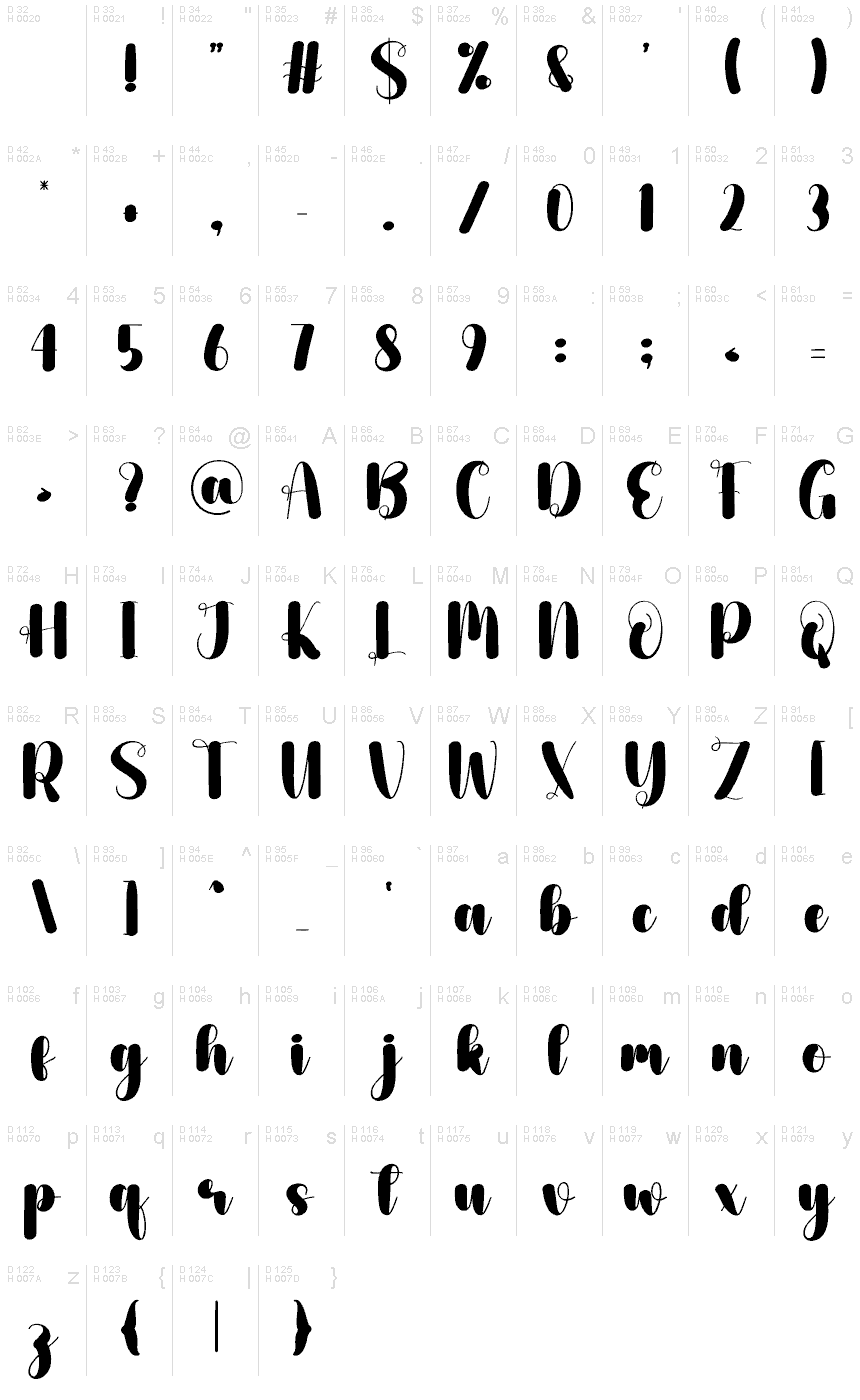
Tolerant
Tolerant font designed by Andi Moz is a bold brush-style typeface. This free handwritten font is elegant, expressive, flowing, and signature-style. Its artistic appeal matches contemporary applications in branding and invitations. Gentle curves can be noticed throughout the characters along with proper spacing for a readable text of any size.